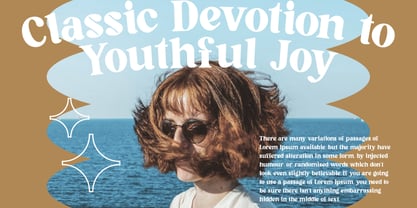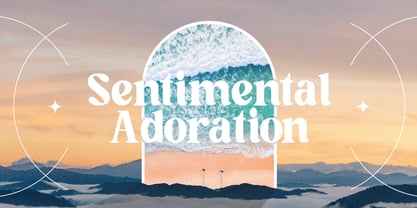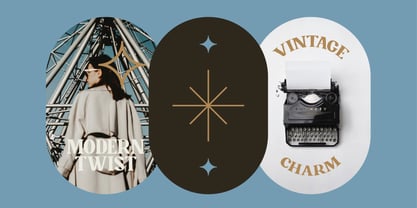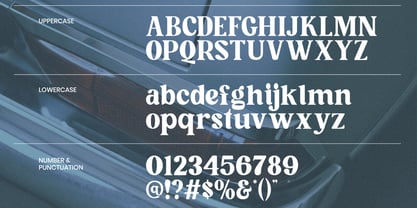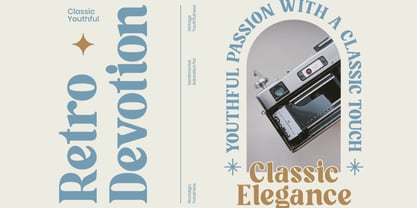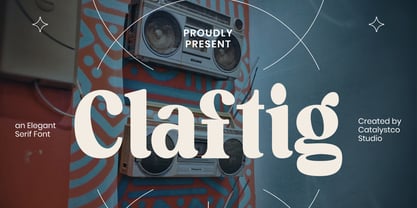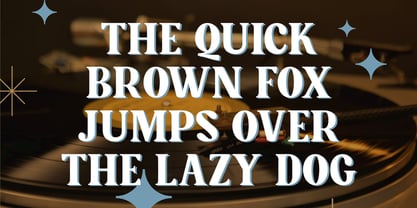
Claftig
by Catalystco Std
The Claftig Font Family was designed by and published by Catalystco Std. Claftig contains 1 styles. More about this family
Claftig is a stylish serif typeface that blends modern curves with vintage charm. Its balanced proportions, smooth contrast, and soft edges evoke both sophistication and warmth, making it ideal for editorial design, fashion branding, and creative headlines. The font’s elegant serifs and contemporary rhythm give each letter a refined yet approachable look. Claftig performs beautifully in both display and body text, offering versatility for timeless and modern design compositions alike.